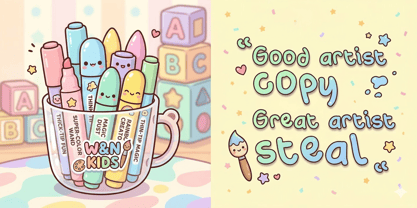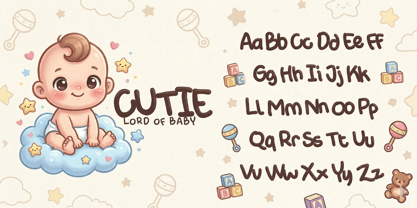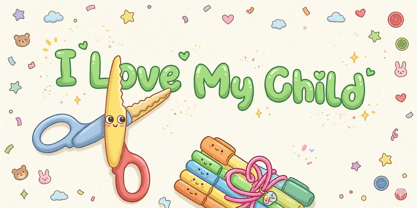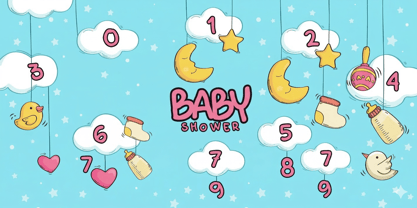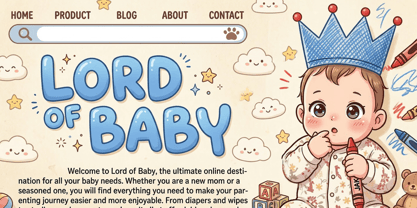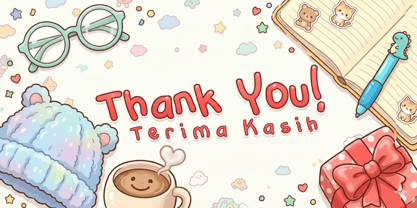
Marker O Type
La familia tipográfica Marker O Type fue diseñada por Galang Persada y publicada por O Type Foundry. Marker O Type contiene 1 estilos.
Explore Marker O Type: Your Playful Signature Font
Perfect for Comic Books and More!
With its unique brush style, Marker O Type injects a childlike signature into your designs. Ideal for main text in comic books, this font radiates joy and creativity.
Why Choose Marker O Type?
1. Unique Brush Writing Style
This font is more than just letters; it's art that brings a unique childlike touch. The brush style exudes playfulness, reminiscent of whimsical children's writing like comic sans.
2. Versatility for Various Design Needs
From logos to invitations, magazines, books, wedding cards, packaging, fashion, and even makeup, Marker O Type is the top choice. Its flexibility ensures a fitting appearance across various formal design needs.
Experience Magic with Marker O Type:
"Little girly hands, with a touch of marker magic, create cute, playful fonts perfect for kids' books, greeting cards, and comics. The handwritten signatures add a decorative and comical twist, making them ideal for kiddos' invitations, fashion labels, and packaging. Whether it's for a kiddie's blog, novels, or kids' t-shirts, the kiddies font collection brings a fairy look to every project. From comic sans to a comic book font, the versatility suits a variety of marketing materials, making up a kiddo-friendly, kid-approved font paradise. The kid print and kid writing styles are also perfect for kids' illustrations, adding a touch of moody charm to any stationery or magazines. Let your invitations, kids' stories, and kiddo marketing materials shine with the unique charm of Marker O Type."
Elevate your graphic design to the next level with the cheerfulness and uniqueness of Marker O Type. Ideal for logos, invitations, wedding gifts, and product packaging, Marker O Type adds a personal and enjoyable touch to captivate your audience.